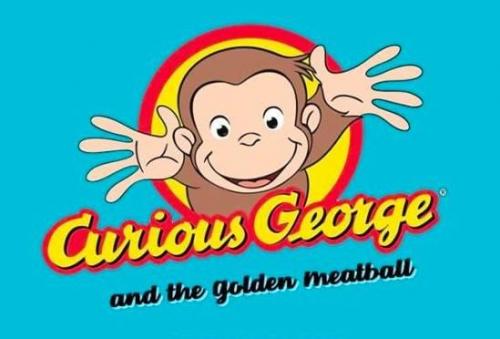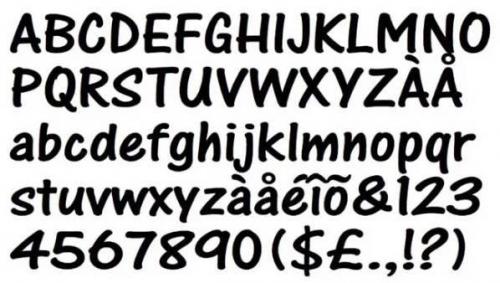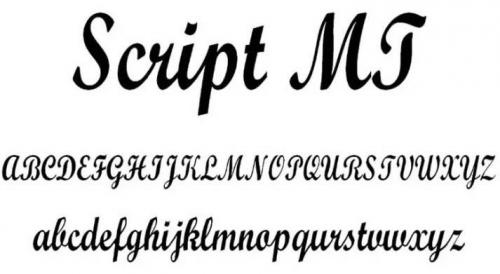
Curious George is an American animated children’s television series based on the children’s book series of the same name which features Jeff Bennett as the voice of The Man with the Yellow Hat. Frank Welker, who voiced George in the 2006 feature film, returns as the voice of him. The show premiered on PBS Kids on September 4, 2006, and originally ended after nine seasons on April 1, 2015 before making a return in 2018 after a 3 year hiatus. The series takes place in the same continuity as the 2006 film of the same name, although some of the characters including the Bloomsberry family, Maggie, and Ivan are not present.
There are two fonts used in this movie title. Script MT Bold font has an unusually heavy appearance, inspired by the early twentieth-century German script writing styles. Despite the heaviness of this font, Monotype Script Bold has a lively style for packaging and other display purposes. Designed by F.H. Steltzer.
ONE STROKE SCRIPT font was carefully designed by Paul Clarke. These two great fonts are consist of amazing swashes and highly legible characters displaying keen features.